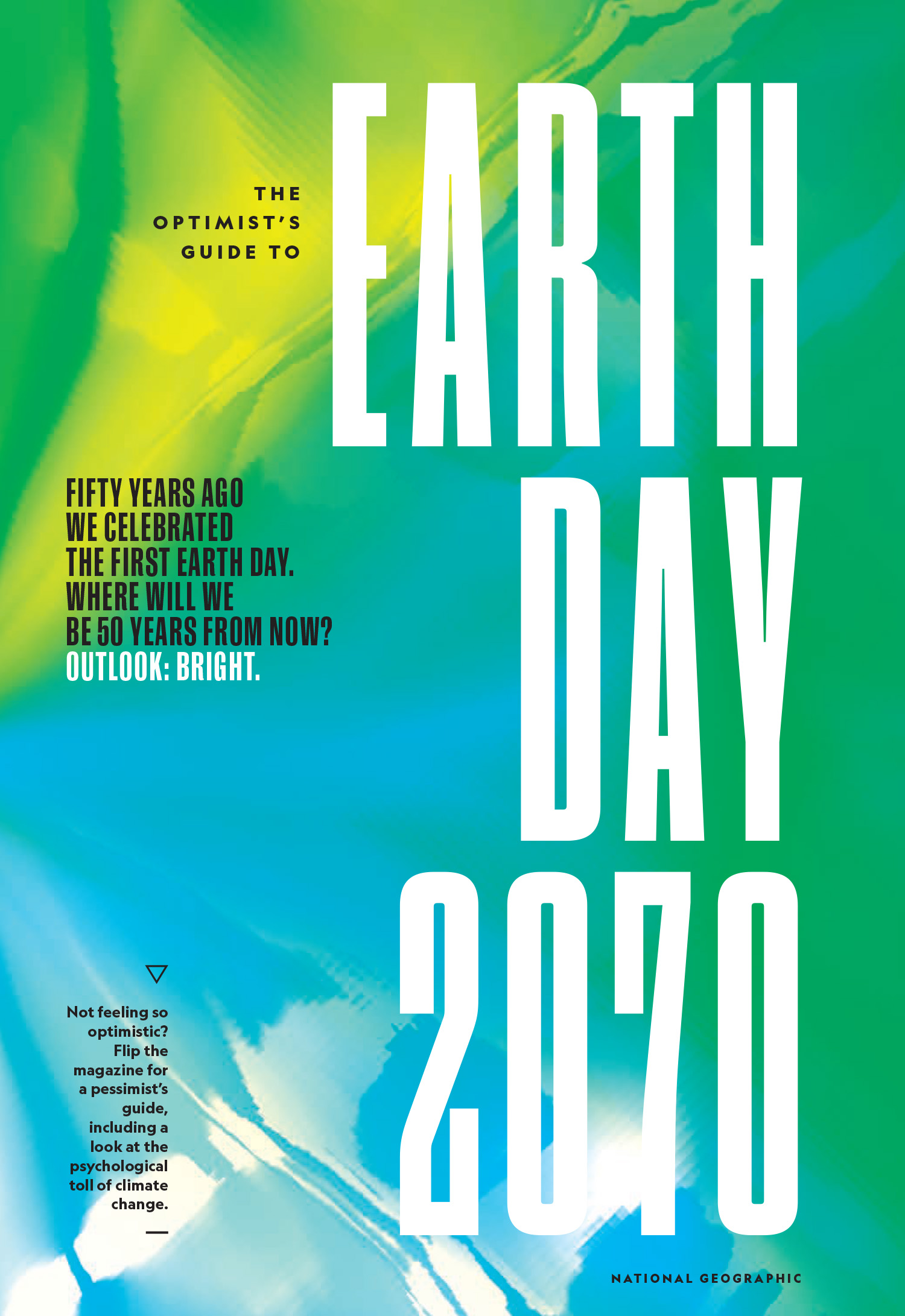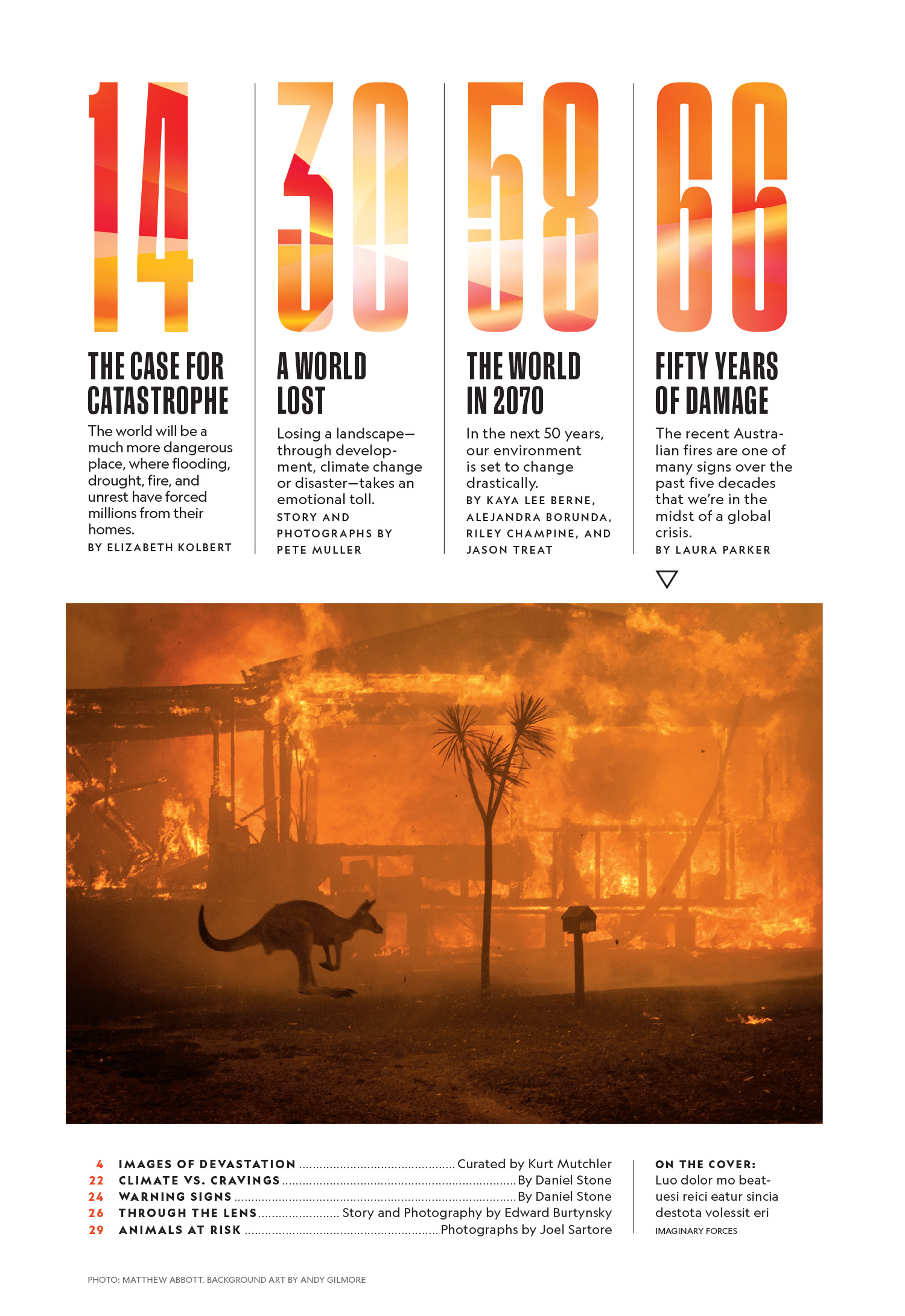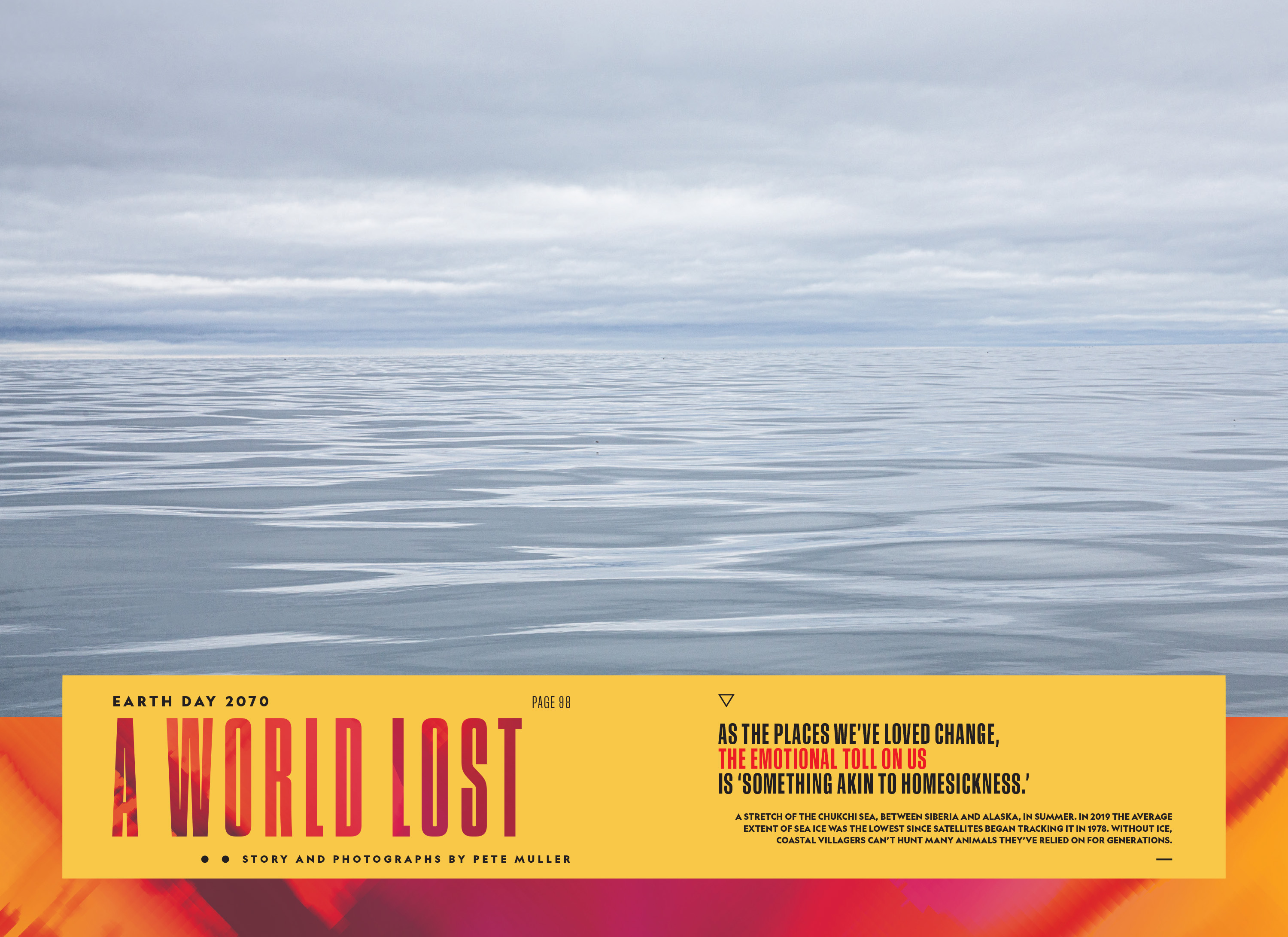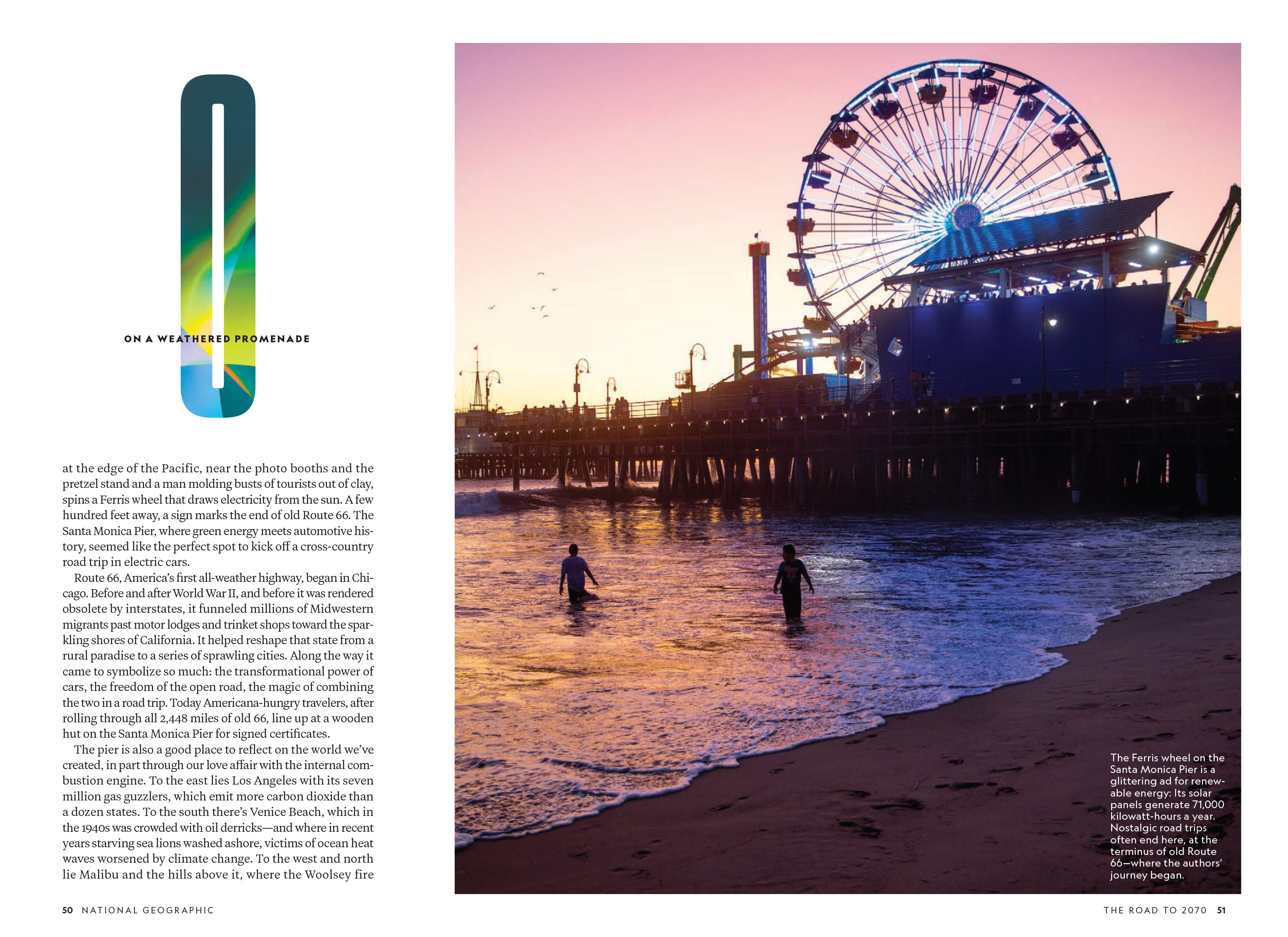
Marianne Seregi at National Geographic asked me if I could make a “more compressed version of Marden” for a special Earth Day issue. I used this as an opportunity to add a hyper-condensed member to the comprehensive typeface collection that I had been developing for them. We had a pretty tight deadline so I drew the typeface more or less to fit the page layouts as they were being designed. We were working so fast that we never even had time to come up with a name for the typeface, so the beta version name, “Marden Very Condensed,” stuck and it became a standard part of their typographic palette going forward.